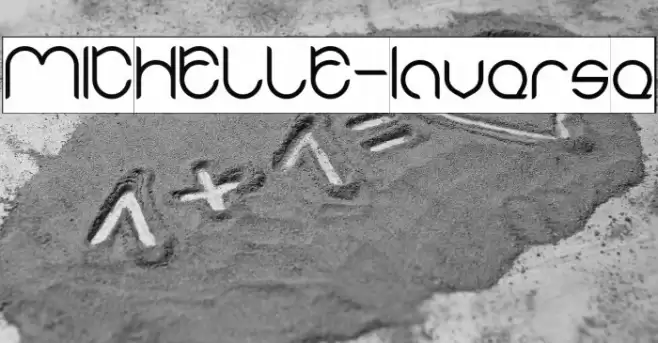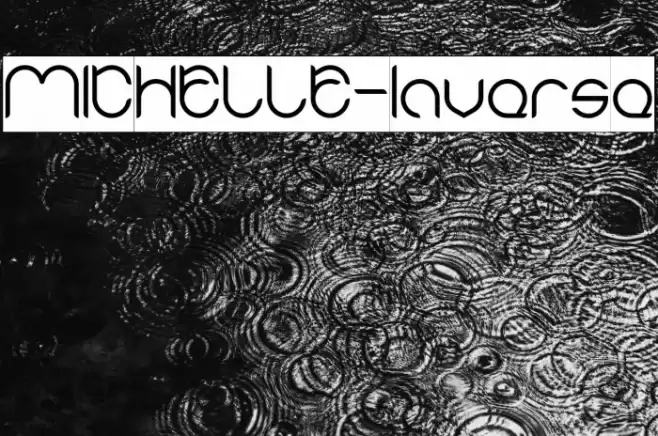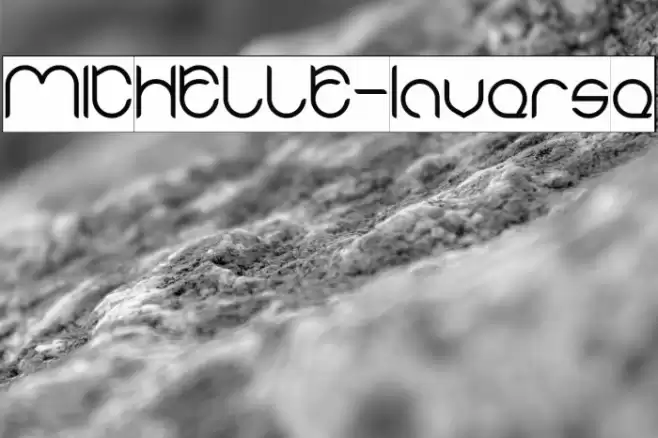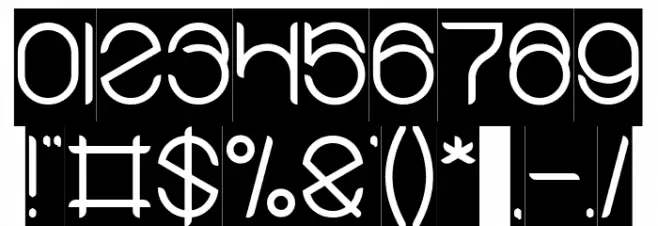
MICHELLE-Inverse Font
MICHELLE-Inverse Description
This font features a unique and modern design with a futuristic flair. The characters are composed of clean, continuous lines that create a sense of fluidity and movement. The uppercase and lowercase letters maintain a consistent style, with rounded edges and a geometric structure. The numbers and special characters are designed to match the overall aesthetic, providing a cohesive look. The font's distinct style makes it stand out, offering a contemporary and innovative appearance that is both eye-catching and versatile.
A modern, futuristic font with clean lines and geometric shapes from Uncategorized fonts.
- Proposed Projects: Ideal for technology branding, modern art projects, futuristic designs, and innovative product packaging.
- Overall Style: Futuristic
- Use Case: Logos, Headlines, Branding